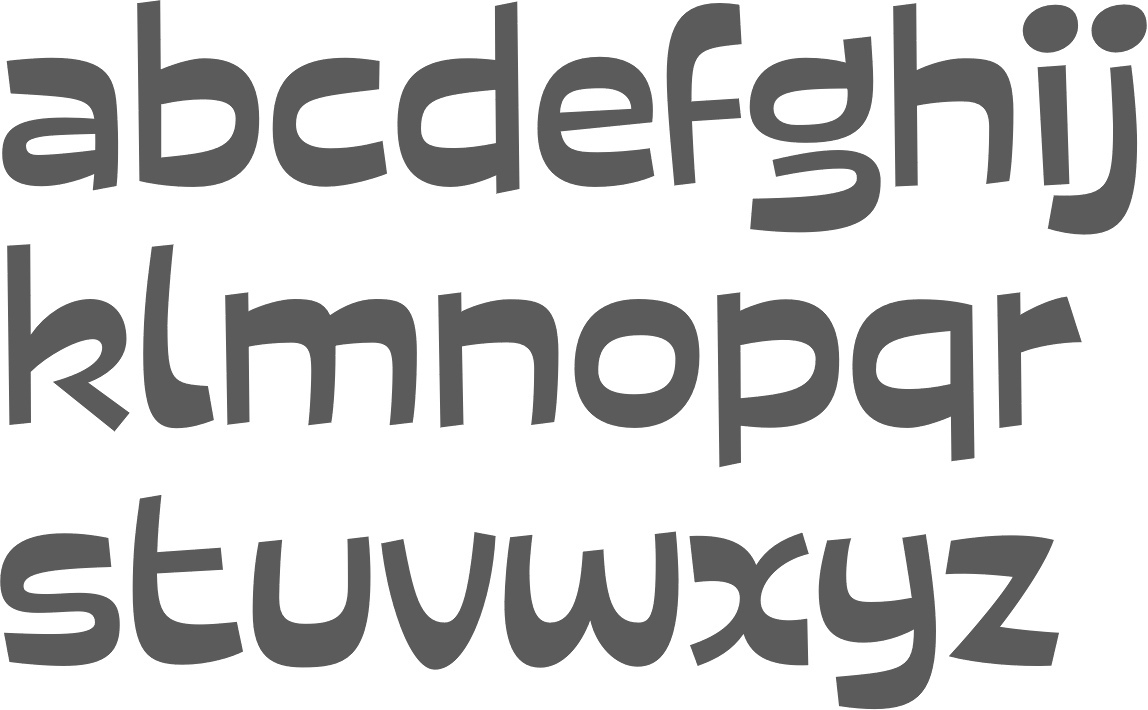
Eggwhite Font
Eggwhite Font is perfect for organic food branding, farm-fresh product packaging, wholesome bakery signage, natural skincare labels, breakfast restaurant menus, healthy lifestyle blogs, artisanal dairy marketing, and clean eating campaigns. This pure typeface excels in applications where natural simplicity and wholesome authenticity are essential for creating fresh and trustworthy brand experiences that celebrate the goodness of pure ingredients.
What makes Eggwhite Font truly exciting is its gentle embodiment of natural purity and wholesome simplicity that captures the clean essence of farm-fresh ingredients and the honest quality of artisanal food production. The font features soft, rounded letterforms with clean curves and pure character details that mirror the smooth texture of fresh egg whites and the pristine quality of natural products. Its wholesome personality and clean character create an immediate sense of purity and natural goodness that resonates with audiences seeking authentic healthy living solutions and unprocessed food experiences. The typeface's natural appeal and pure quality make it perfect for brands wanting to convey freshness, health, and connection to the essential goodness of natural ingredients and clean living principles.
The Eggwhite Font family includes regular and light weights with clean styling, complemented by natural alternates and wholesome decorative elements. The font offers comprehensive character sets with organic symbols, natural ligatures, and clean styling details that enhance its pure aesthetic. Additional graphic elements including natural patterns, organic motifs, wholesome ornaments, and clean flourishes provide designers with complete branding tools rooted in natural food culture and healthy living traditions.